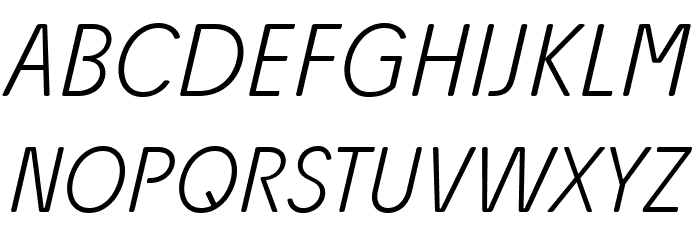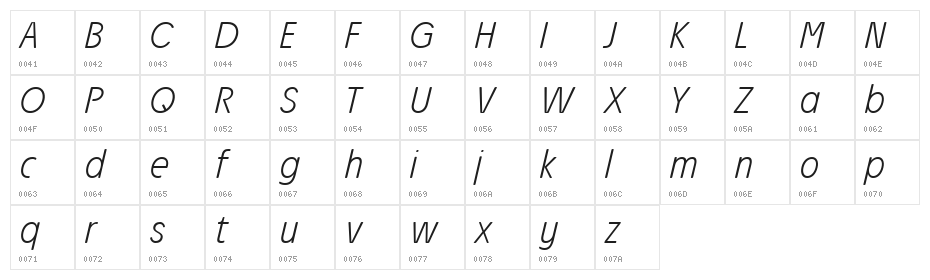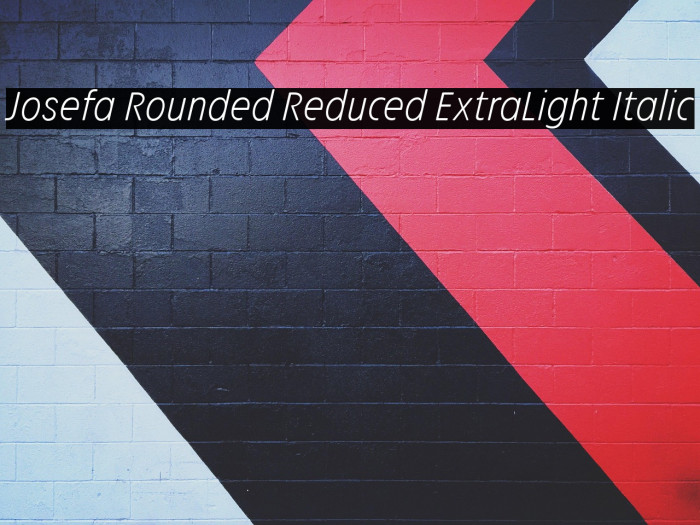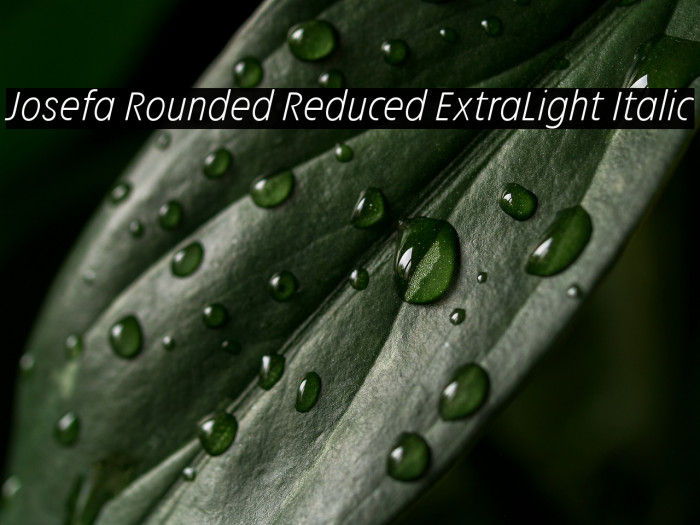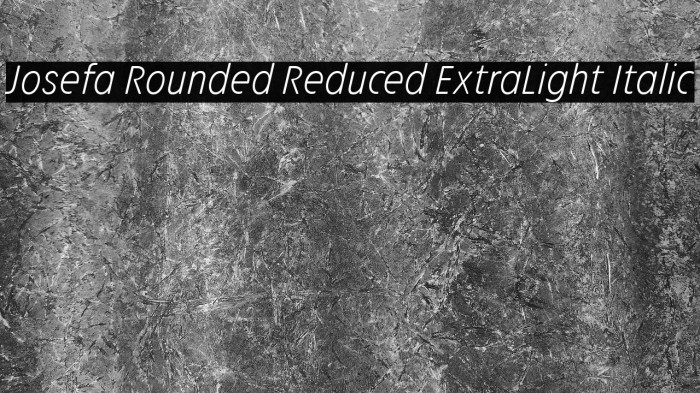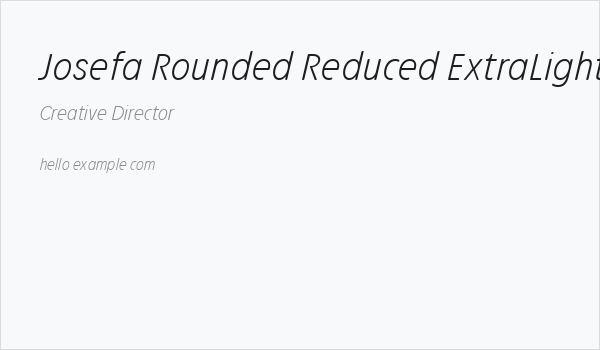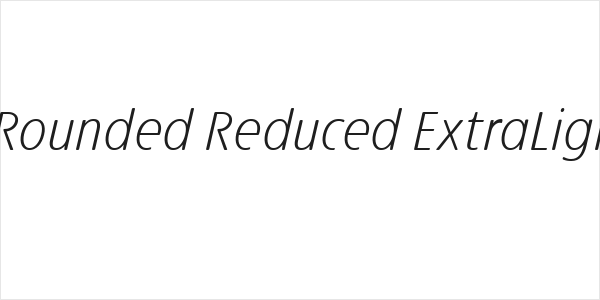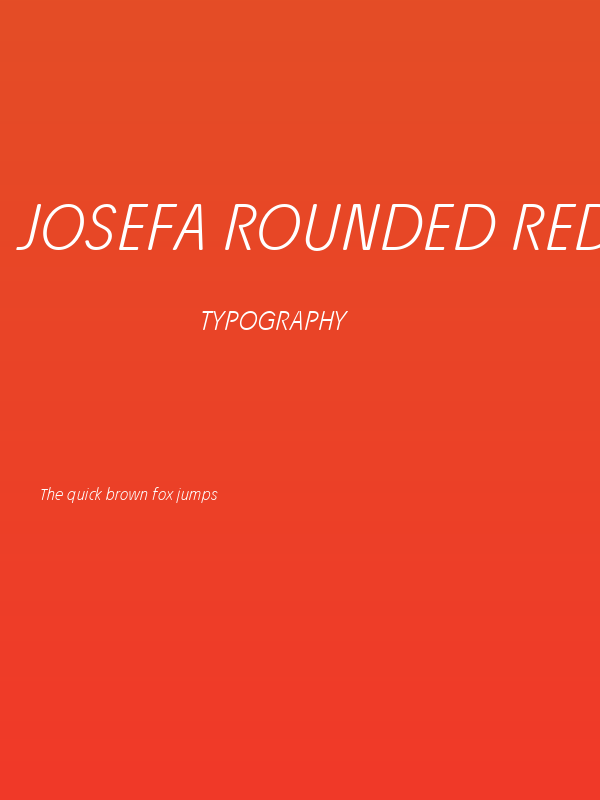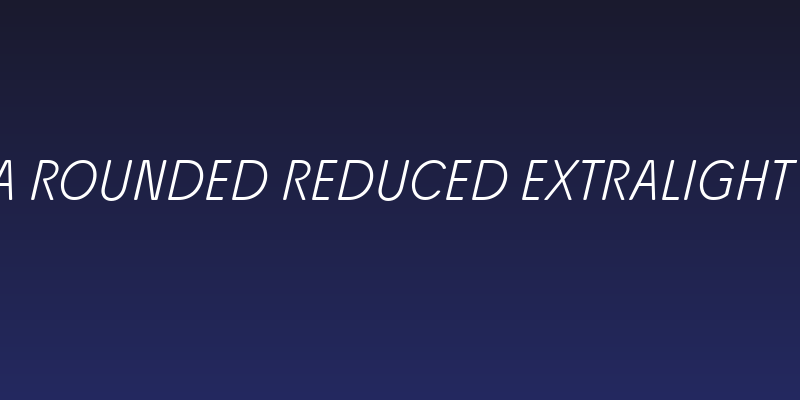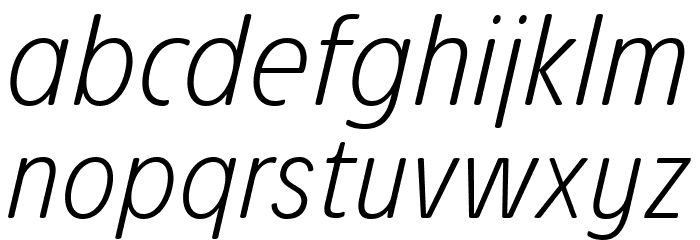
Josefa Rounded Reduced ExtraLight Italic Font
Josefa Rounded Reduced ExtraLight Italic Description
This typeface features a sleek and modern design with a rounded appearance that adds a touch of softness to its overall look. The characters are crafted with an extra light weight, giving them an airy and delicate feel. The italic style introduces a subtle slant, enhancing the font's elegance and fluidity. The rounded terminals and smooth curves contribute to a friendly and approachable aesthetic, making it suitable for a variety of design contexts. The font maintains a consistent stroke width, providing a harmonious and balanced appearance across all characters.
| Proposed Projects | Ideal for branding, editorial design, digital interfaces, and any project requiring a modern and approachable touch. |